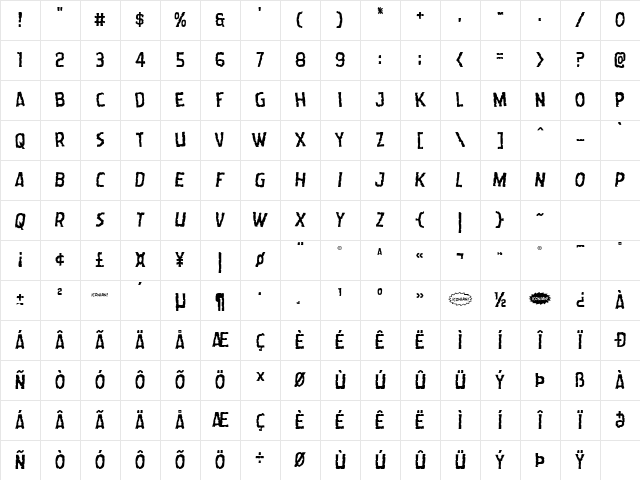
Worm Cuisine Leaning Regular
Design Context for Worm Cuisine Leaning
Worm Cuisine Leaning is a composed and adaptable typeface that performs quietly and consistently across a wide range of design contexts.
Pro Tip: Use Worm Cuisine Leaning in both headline and body roles to test its range before committing to a single application.